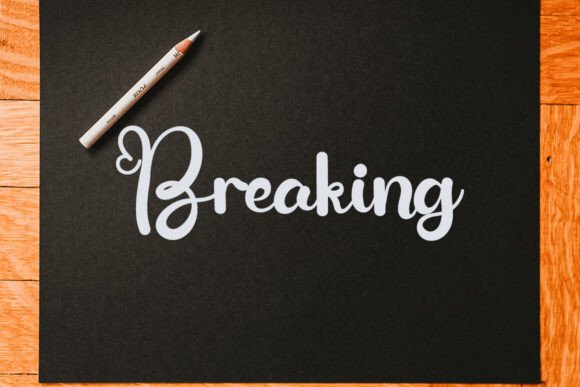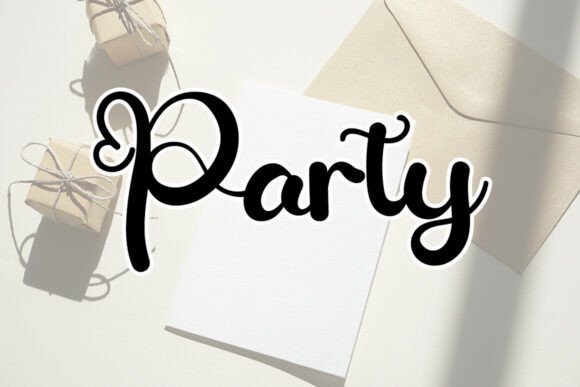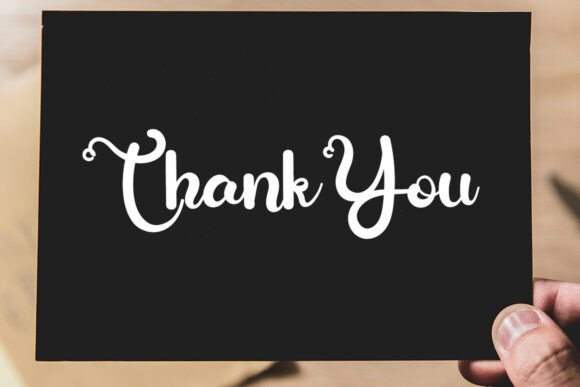
Where Creativity Meets Joy: Introducing the Daycare Font
Have you ever stared at a blank page, your mind racing with ideas, but struggling to find the perfect font to bring your vision to life? That’s where the magic happens – and today, we’re thrilled to introduce you to the delightful Daycare Font, a charming and sophisticated typeface that’s sure to spark your creativity and elevate your designs.
Whether you’re working on a formal business project or a playful personal design, the Daycare Font seamlessly adapts to your needs, adding a touch of freshness and elegance to every piece. This thoughtful font is a must-have for designers looking to add a unique and cheerful twist to their work, making it the perfect addition to any project.
Key Features of Daycare Font
- Font Family: Daycare Font is a custom-designed font, available in both Regular and Bold styles.
- Character Set: The font includes a comprehensive character set, covering Latin, Cyrillic, and Greek alphabets, as well as a range of symbols and punctuation marks.
- Unique Characteristics: Daycare Font features a playful, child-friendly design, with rounded edges and soft lines, making it perfect for educational and childcare-related applications.
Daycare Font Review
As a designer, I’ve had the chance to work with a wide range of fonts, and Daycare Font is one of the more interesting ones I’ve come across. ✨ One thing that stands out is its unique, childlike feel, which is perfect for designs aimed at young audiences or educational content.
Here are some specific strengths:
- Daycare Font’s friendly and approachable vibe makes it a great choice for designs that need to convey a sense of warmth and playfulness.
- Its wide range of weights and styles allows for a high degree of customization, making it suitable for various design applications.
- Daycare Font is highly legible, even at smaller font sizes, which is essential for designs where text needs to be easily readable.
- ⚠️ Daycare Font may not be the best choice for formal or professional designs, as its childlike feel can come across as immature or unprofessional.
- ⚠️ The font’s wide range of weights and styles can be overwhelming to work with, especially for designers who prefer a more streamlined design process.
- ⚠️ Daycare Font may not be suitable for designs that require a lot of precision or technical accuracy, as its playful feel can detract from the overall professionalism of the design.
Overall, I’d say that Daycare Font is a solid choice for designers who need a friendly and approachable font for educational or young-focused content. However, it may not be the best fit for more formal or technical designs.
Tips for Getting the Most Out of “Daycare Font”
For best results, use “Daycare Font” in conjunction with other playful and child-friendly design elements. Consider using bright colors and fun graphics to create a cohesive and engaging visual identity.
“Daycare Font” is ideal for:
- Daycare center branding and marketing materials
- Children’s educational materials and activities
- Playground and recreation center signage